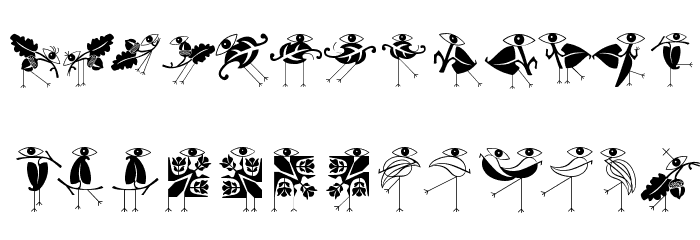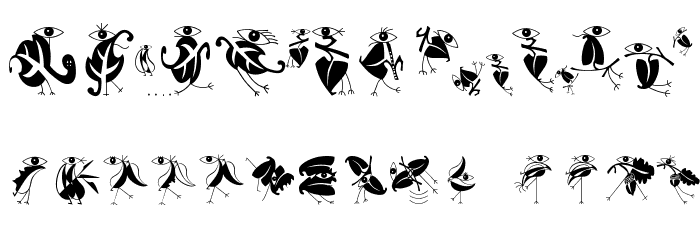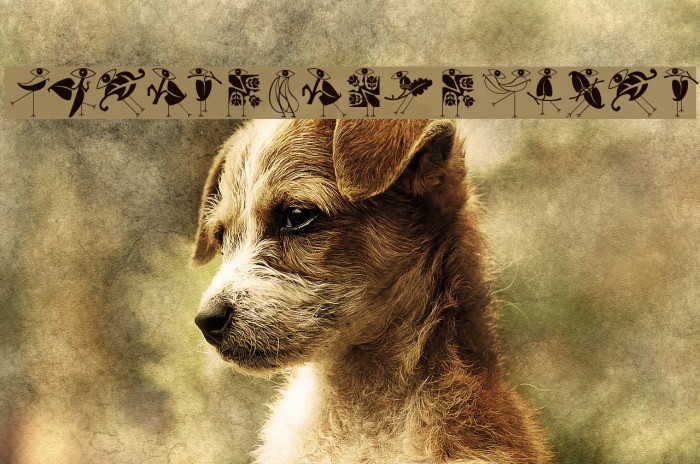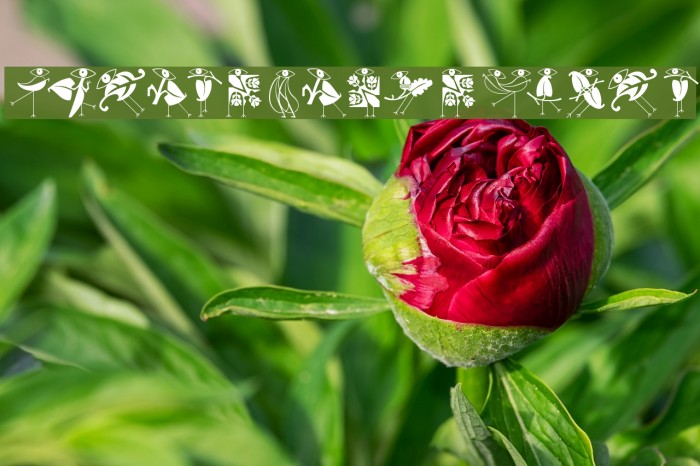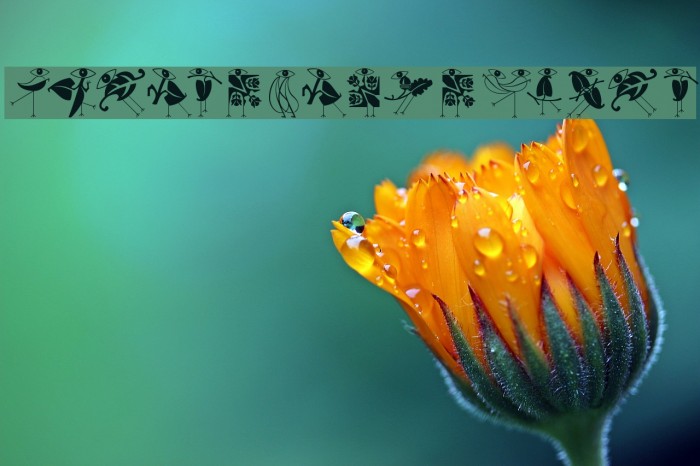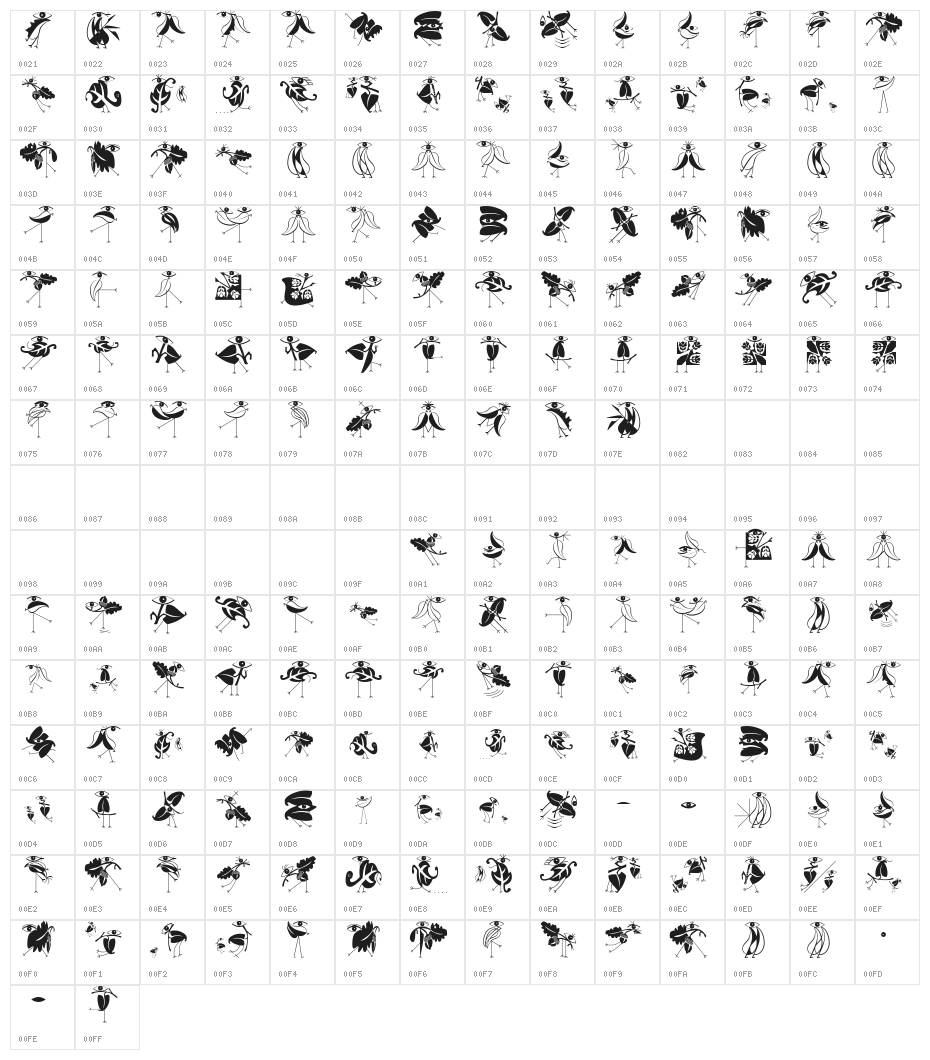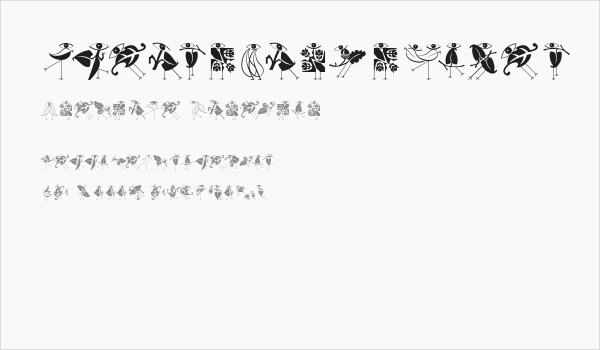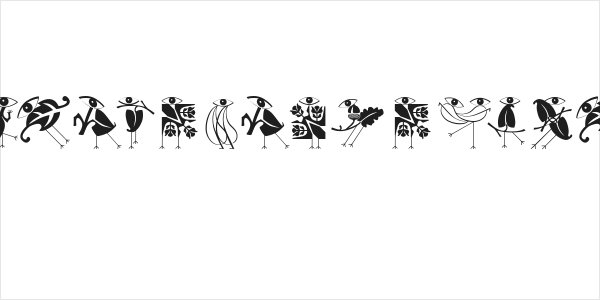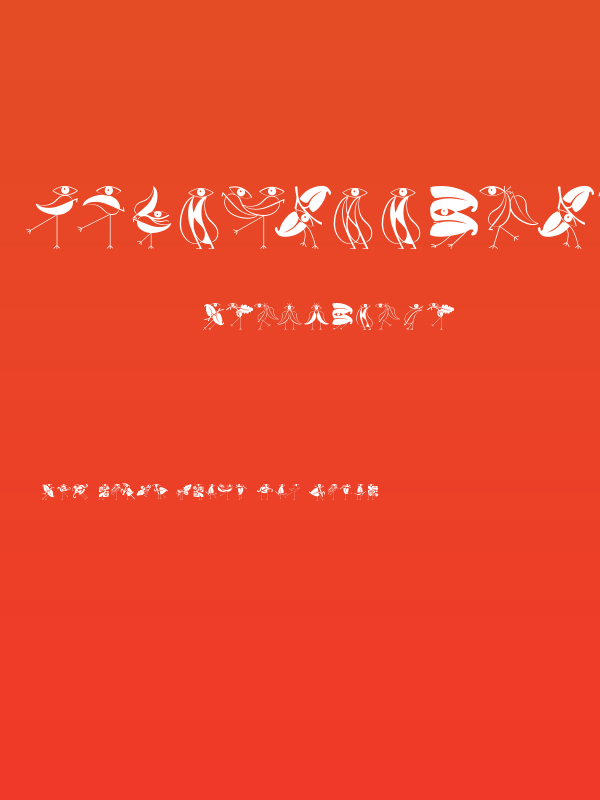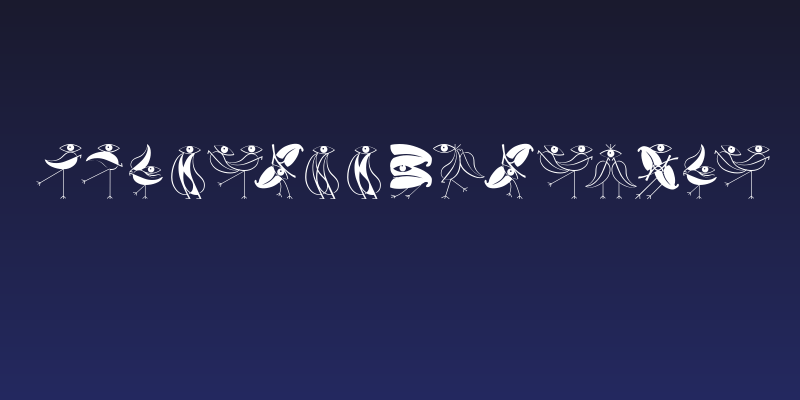
KleinsBirdsNoTen Font
This is not a traditional font but rather a collection of whimsical bird illustrations, each uniquely designed with playful and abstract characteristics. The birds are creatively styled, incorporating elements of nature and abstract art, making them more of a decorative art piece than a functional typeface. Each bird is distinct, with exaggerated features like large eyes, intricate patterns, and dynamic poses, showcasing a blend of creativity and humor. These illustrations are more suited for artistic projects rather than textual communication.
A collection of whimsical bird illustrations with abstract and playful designs.
- Proposed Projects: Ideal for artistic projects, children's book illustrations, decorative posters, and creative branding elements.
- Use Case: Artistic projects, illustrations, decorative elements.